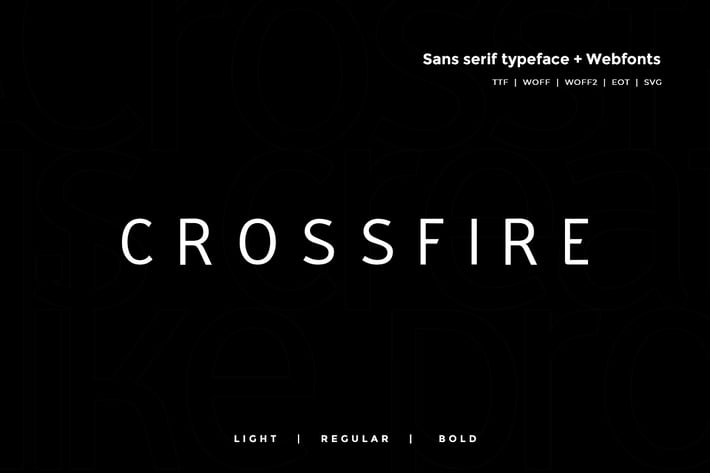
Crossfire - Modern Typeface + WebFont
Crossfire Sans Typeface
Crossfire Sans is a modern and Minimal Sans Serif typeface, Crossfire Sans can keep the minimalism at its level best and is a Perfect choice for Creative and Classic Typography Designs.
LIGHT | REGULAR | BOLD